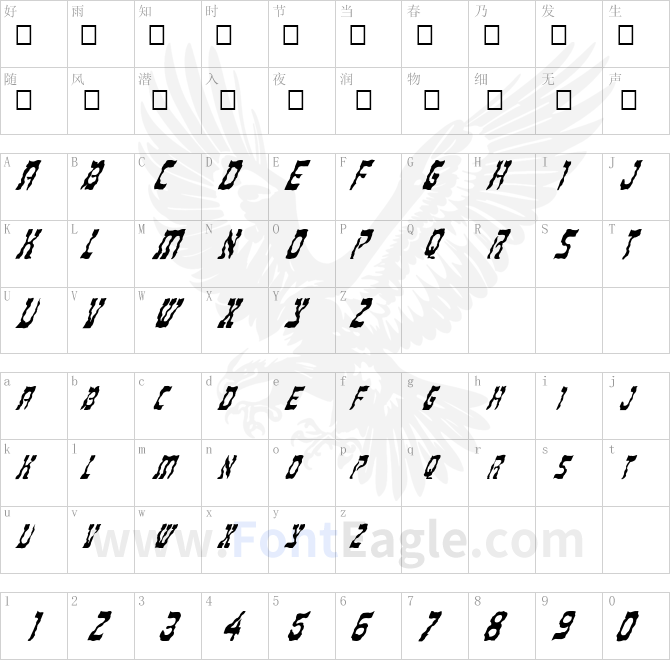
FZ UNIQUE 27 WAVEY ITALIC Normal.ttf Font Image
- Font name:FZ UNIQUE 27 WAVEY ITALIC
- Font Subfamily ID:FZ UNIQUE 27 WAVEY ITALIC
- Font Full Name:FZ UNIQUE 27 WAVEY ITALIC
- Postscript:FZ-UNIQUE27WAVEYITALIC